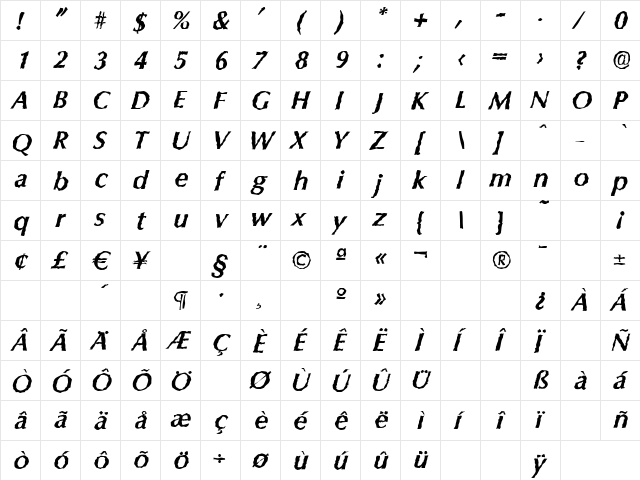
ColumbiaRandom BoldItalic
Design Context for ColumbiaRandom Typeface
ColumbiaRandom is a composed and adaptable typeface that performs quietly and consistently across a wide range of design contexts. The dynamic lean of this cut emphasises speed and emphasis in any layout. Its bold stroke weight gives it real presence on the page.
Pro Tip: Try ColumbiaRandom for annotation and caption copy alongside an upright companion — the contrast in angle creates a dynamic but ordered typographic system.